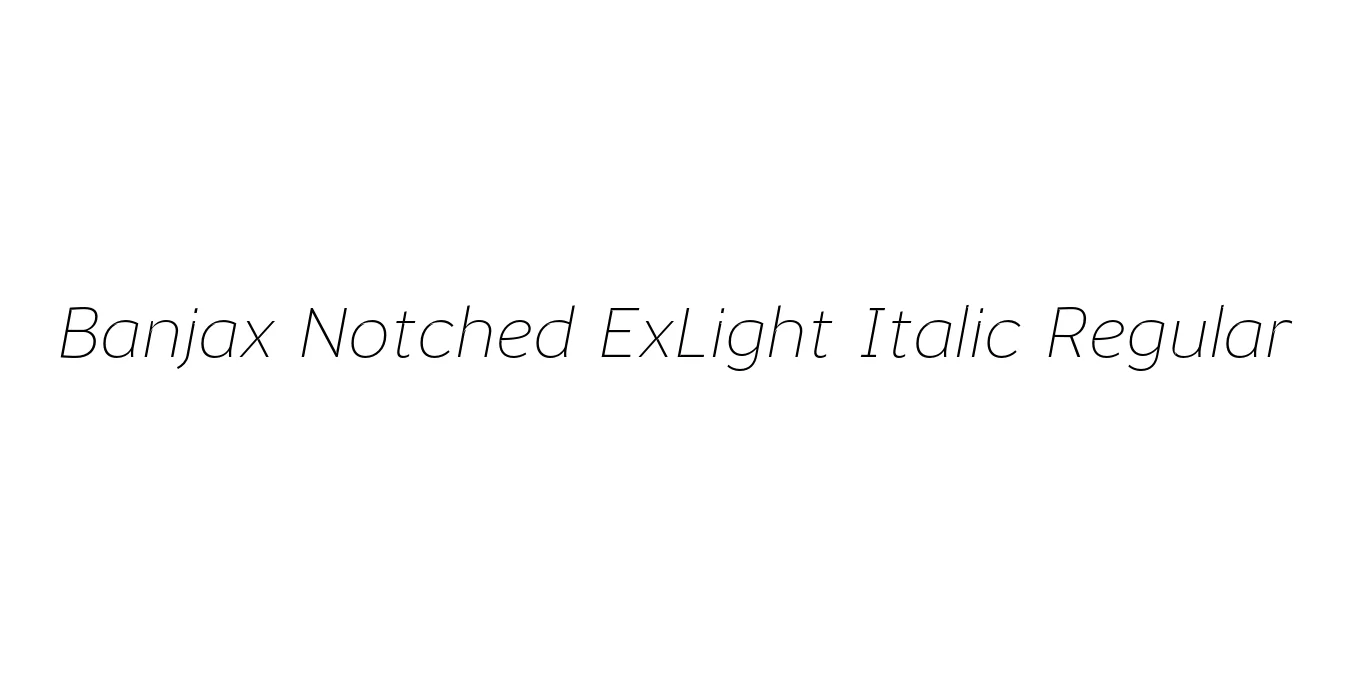
Banjax Notched ExLight Italic Regular
Designed by Dave Thompson (K-Type)
Banjax Notched ExLight Italic Regular is a contemporary sans-serif typeface that emphasizes precision and architectural form. Designed as part of the broader Banjax family, this specific notched variant features deliberate gaps at the junctions of strokes, which gives the letterforms a technical and modern industrial aesthetic. The Extra Light weight, combined with its italic slant, produces a sophisticated and airy appearance that is both elegant and distinctive.
This typeface is particularly effective in high-resolution environments where its unique geometric details can be fully appreciated. Whether used for luxury branding, tech-oriented startups, or minimalist editorial layouts, Banjax Notched ExLight Italic Regular offers a unique blend of clarity and character. Its sleek lines and rhythmic italicization make it a versatile tool for designers looking to convey innovation and stylistic refinement.
Banjax Notched ExLight Italic Regular Best Uses
Sophisticated fashion magazine headers and high-end pull quotes.
Modern logo identities for engineering and software companies.
Minimalist hero sections and clean, professional navigation menus.
Clean and technical displays for modern building interiors.